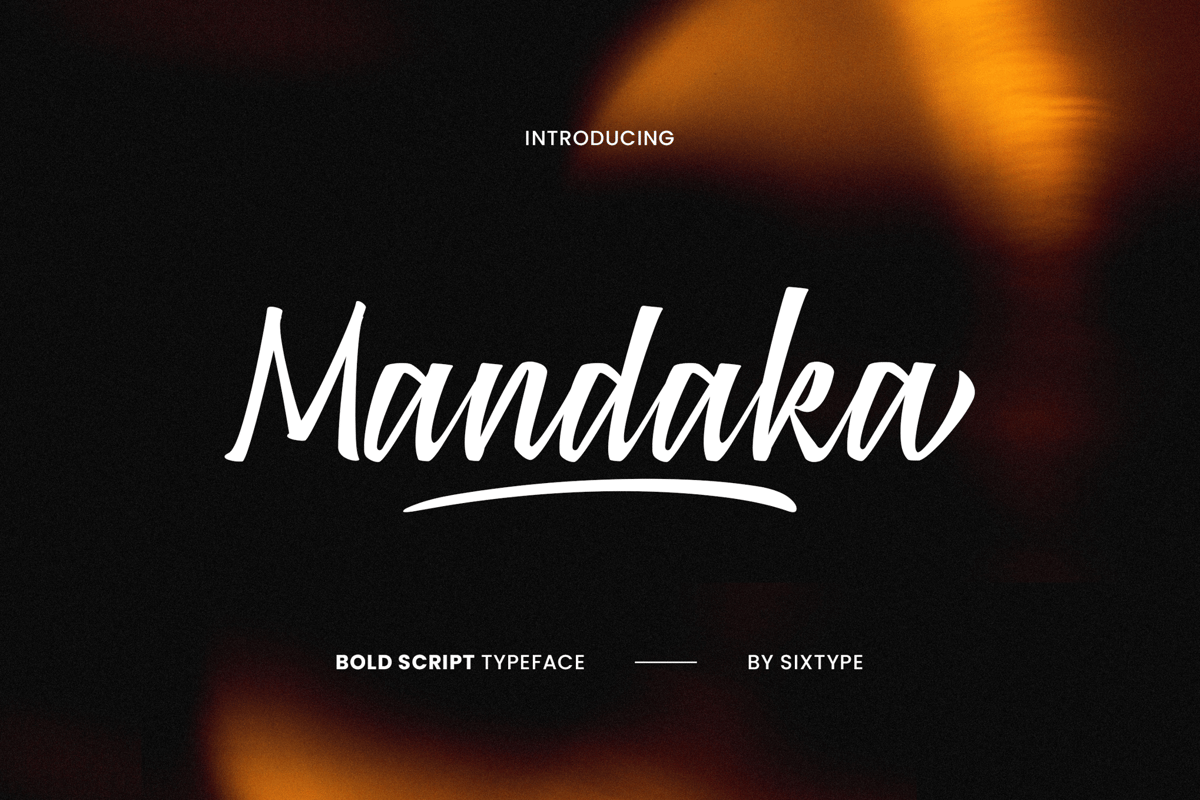
Mandaka - Bold Script Typeface
Command attention with Mandaka Font - a bold script typeface that radiates masculine confidence and unshakable authority. This powerful script font brings a strong, assertive aesthetic to any creative project that demands impact. With its bold strokes and confident character, Mandaka transforms ordinary text into commanding statements that capture attention and convey strength. Perfect for projects that need to make a bold impression: Invitations that demand notice Branding materials with attitu...